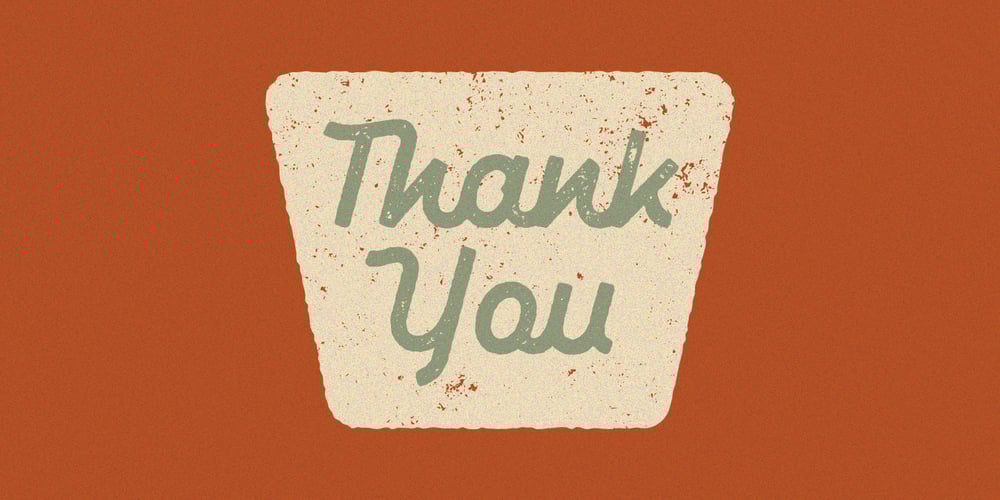
Marshfield Font Family was designed by Adam Fathoni Haris, Renov Olivian and published by Adam Fathony. Marshfield contains 5 styles and family package options. Monoline Fonts with strong identity for an outdoor design, camping, wild, journey, adventure, masculine, and etc. Opentype features are available on Marshfield such as Ligatures, Stylistic Alternates (Up to 6 Alternates), Contextual alternates, and Terminal Alternates. Marshfield Comes with 2 Type of Fonts, Script and Cursive. On each type of fonts have 3 different style, Clean (sharp corner), Round (Rounded Corner), and Rough (Rough Version). 6 Fonts in Total for completing your design style.